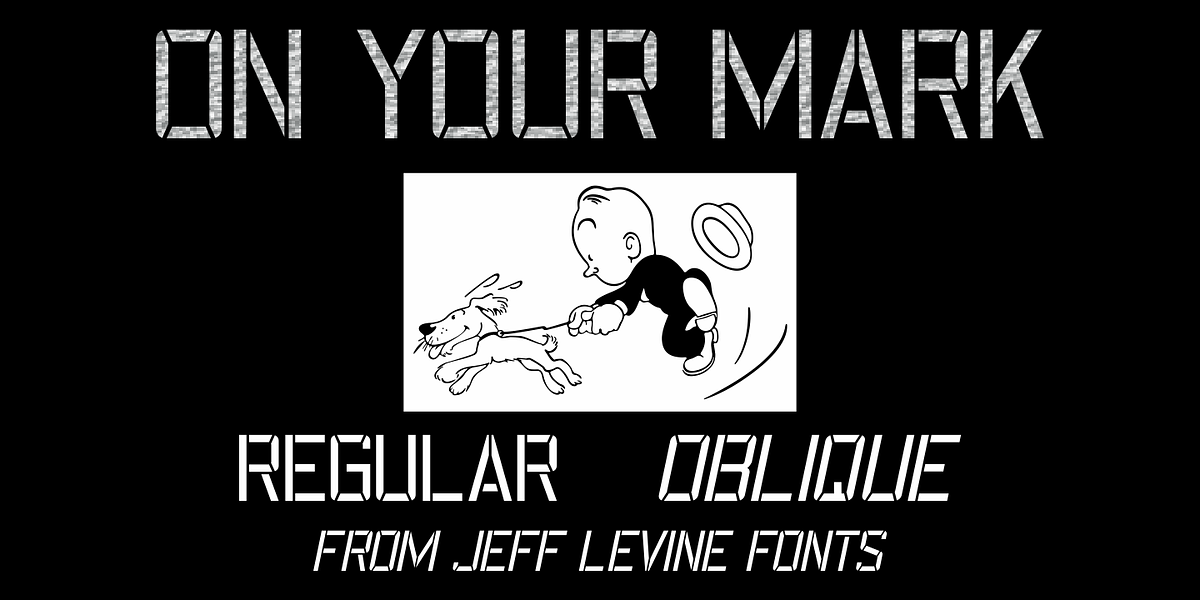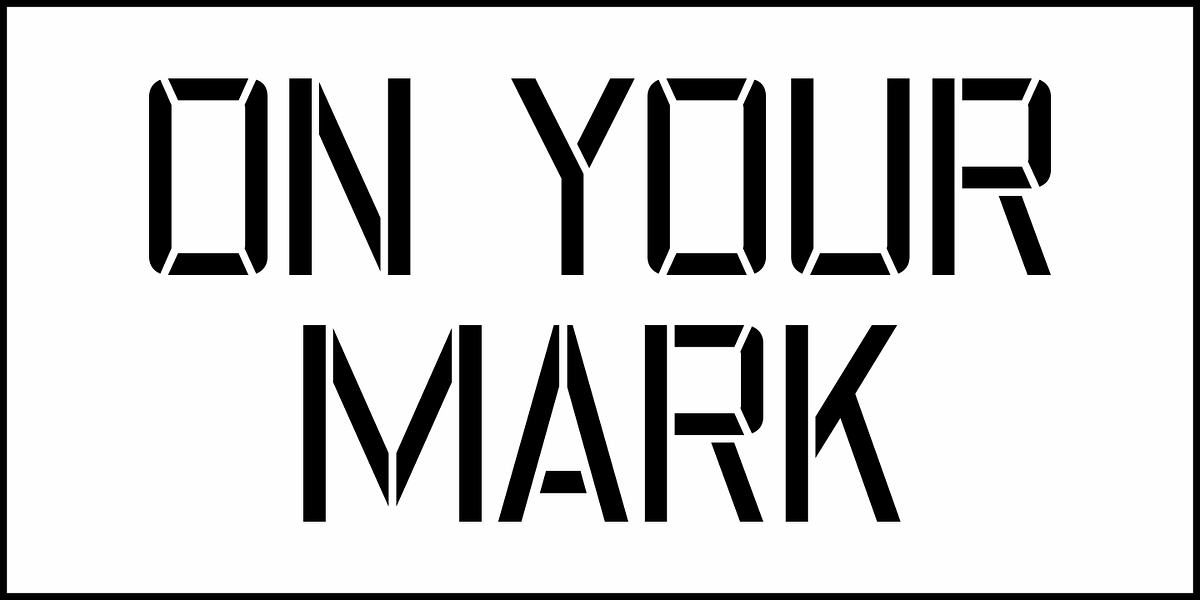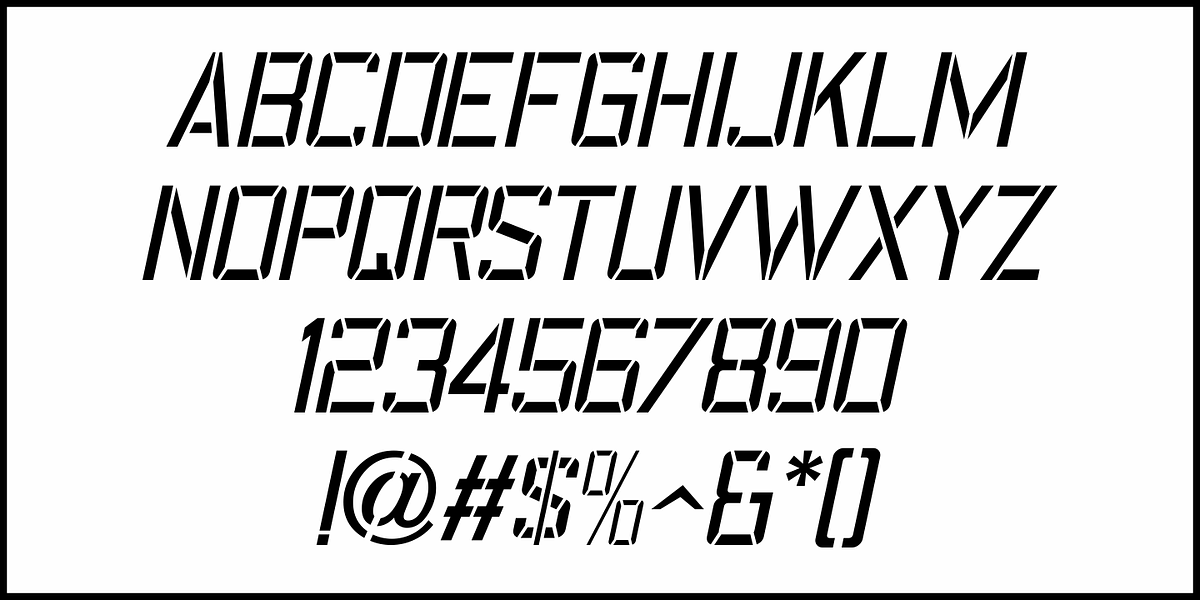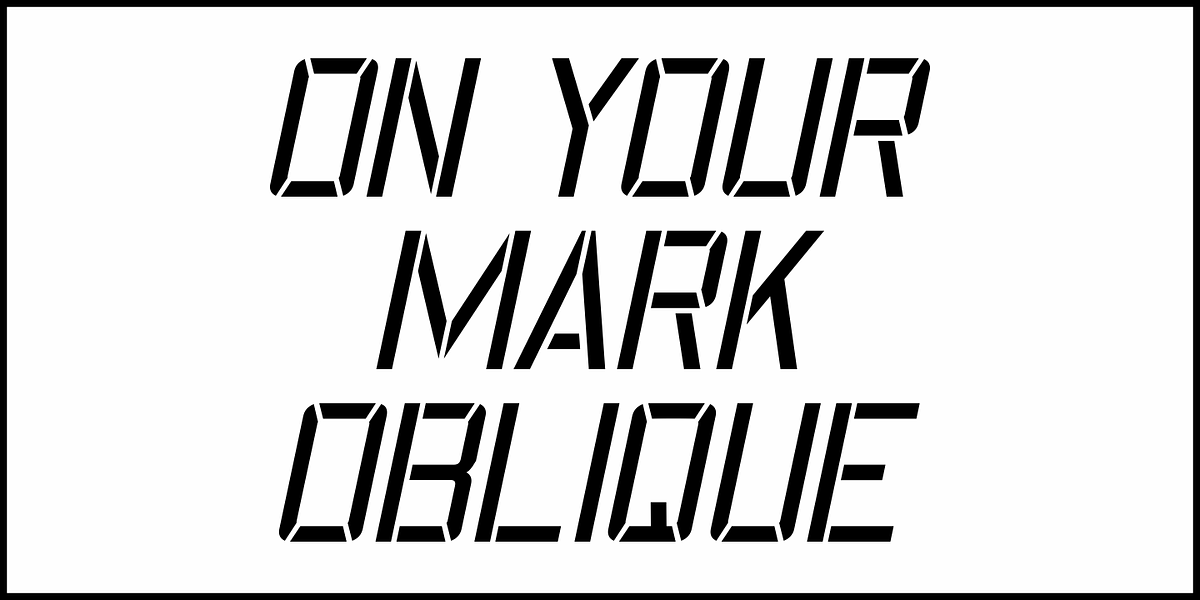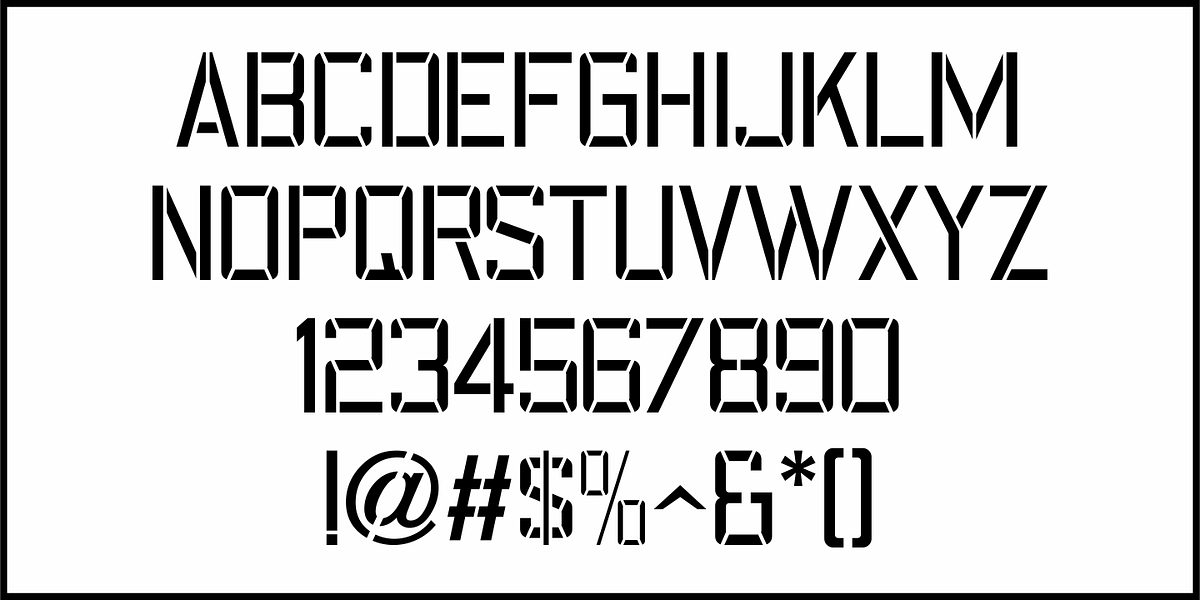
On Your Mark JNL
Images of ‘lost’ or forgotten signs from the past are on a number of sites all over the web.
One in particular partially revealed a vintage sign for “J. Yormark Shoes" behind a barbershop sign at 15 – 8th Avenue in New York City. The sign remained until 2014.
The stencil effect made by the formation of the stained glass letters inspired On Your Mark JNL, which is available in both regular and oblique versions. The font’s name is a play on the shoe vendor’s name… “Yormark”.